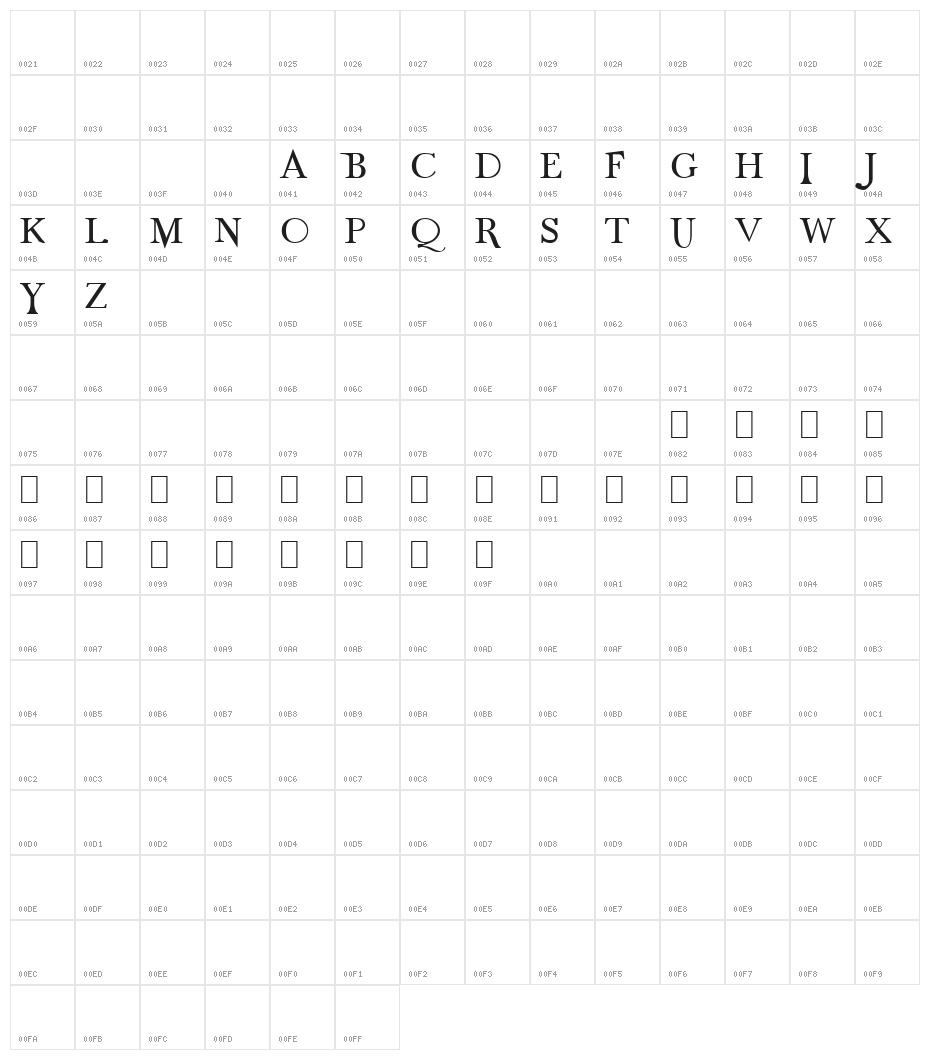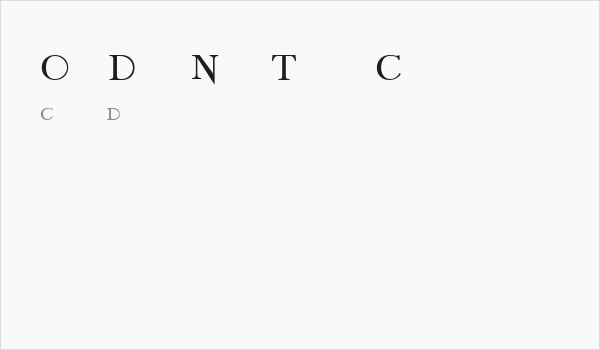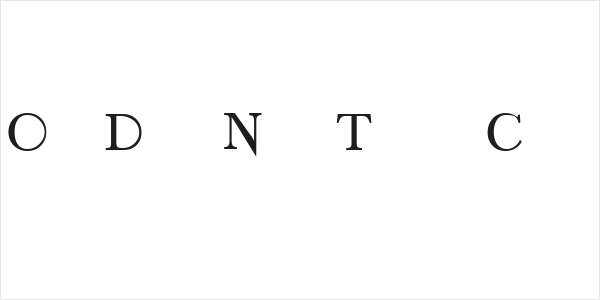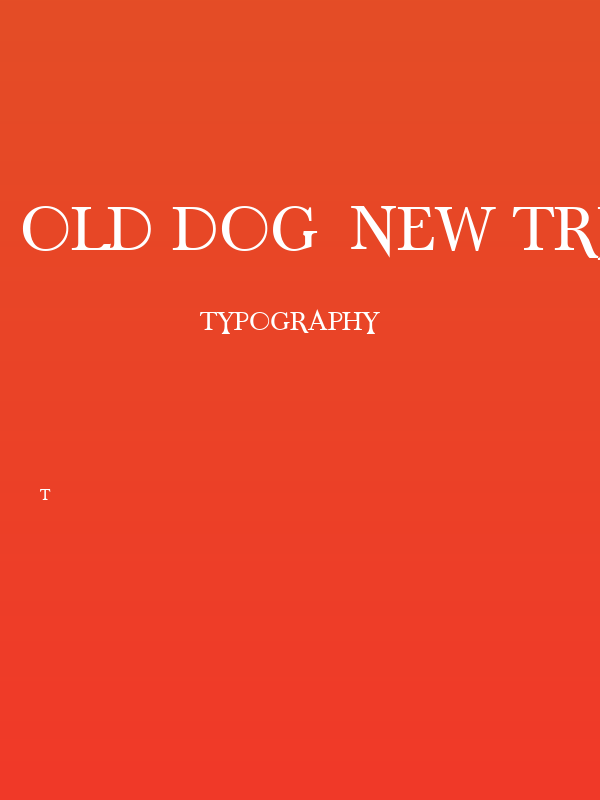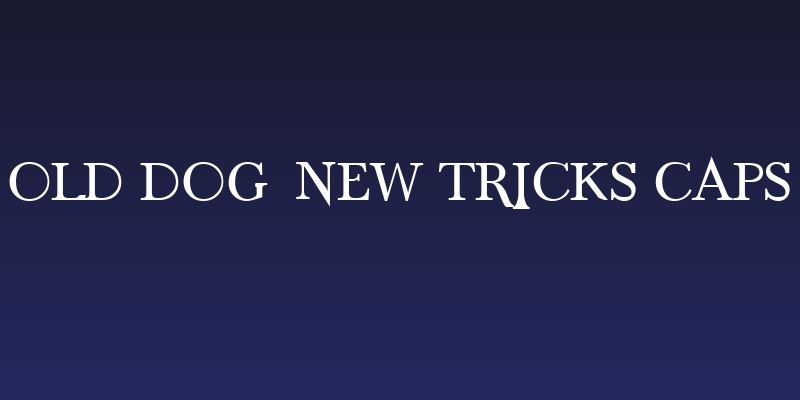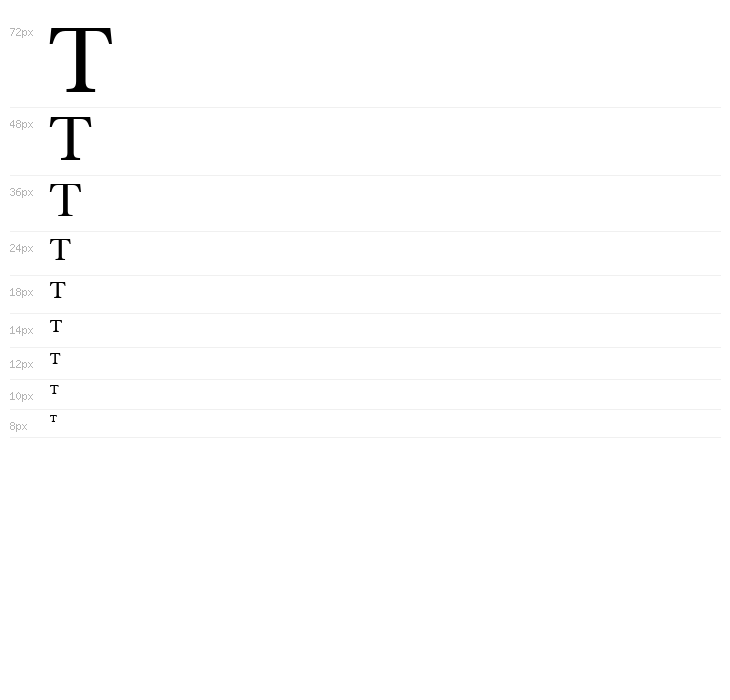
Old Dog, New Tricks Caps Font
Old Dog, New Tricks Caps Description
This font features a classic serif style with elegant, sweeping curves and pronounced serifs that give it a sophisticated and timeless appearance. The uppercase letters are designed with a strong presence, characterized by thick and thin stroke contrasts that enhance readability while maintaining a decorative flair. The unique design of certain letters, such as the 'Q' with its distinctive tail, adds a touch of personality and charm. This font is well-suited for projects that require a touch of elegance and tradition, making it ideal for formal invitations, branding, and editorial designs.
Overall StyleClassic
Use CaseHeadlines, Logos, Editorial designs
Proposed ProjectsIdeal for formal invitations, branding, editorial designs, and any project requiring a touch of elegance and tradition.